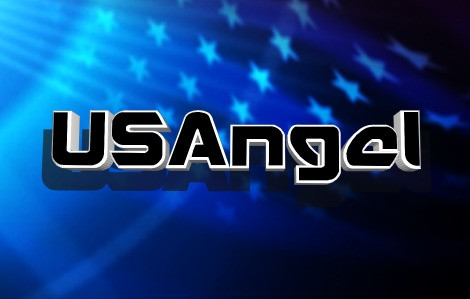
US Angel Font
US Angel Font, This bundle features strong, confident and powerful typefaces designed to work great with sports logos, club branding, apparel applications, labels and more.